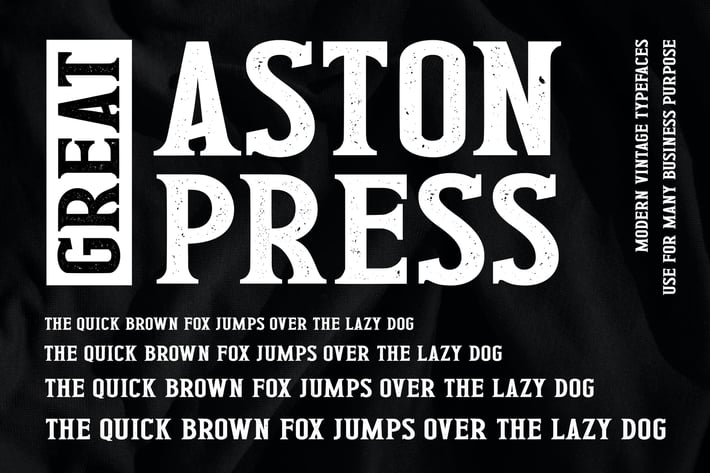
Great Aston Press Advertisement Font
Great Aston Press is made carefully, every press effect in this font is natural and so masculine. Great Aston Press is is awesome font. Very perfect for many project: fashion, magazines, logo, branding, quotes, blog header, poster, advertisements, postcard, book, websites, etc.